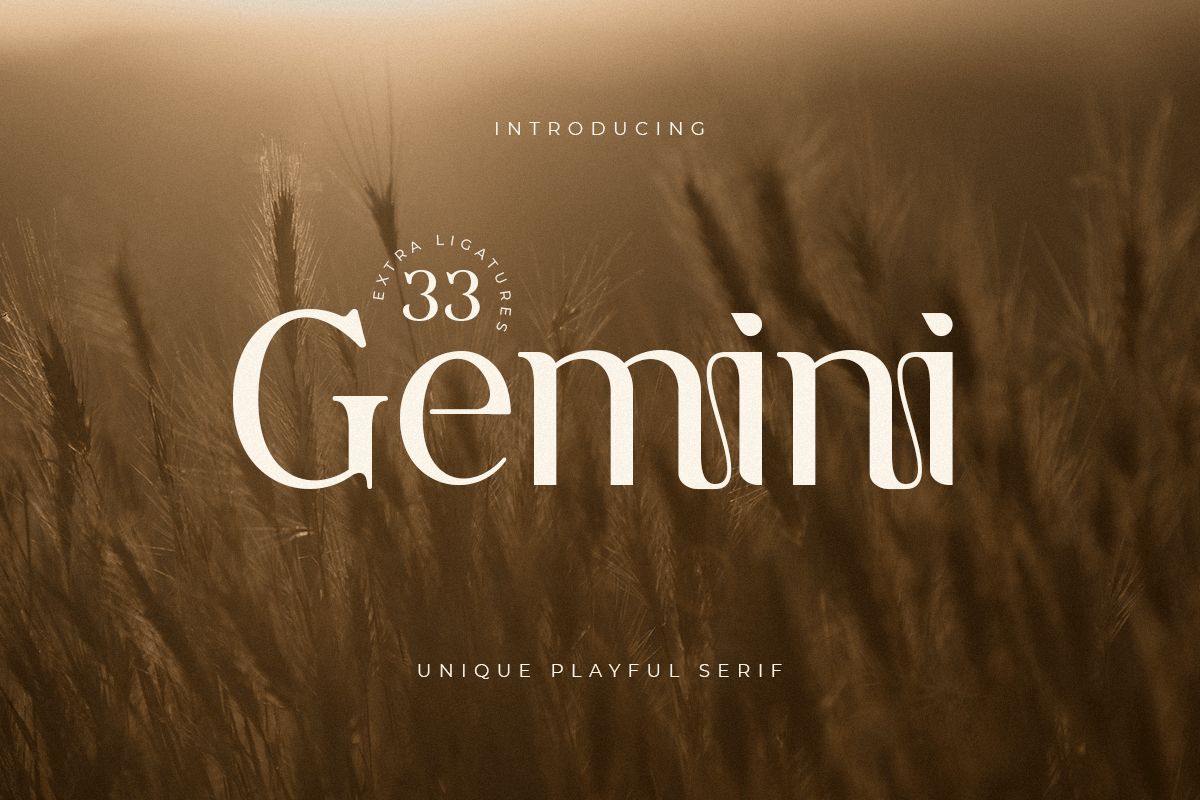
Gemini
-Unique Playful Serif
Gemini
A serif that we created special for unique branding needs, with extra ligature and alternates in unique shape will be ready to add value of your brand. It so nice to leverage designer or product owner that need solutions to make their design look more modern and playful. And specially for this font, We prepared any ligatures, and any alternate characters to help you create unlimited variations for your creative needs.